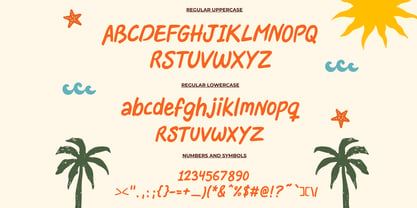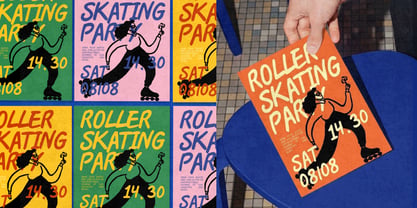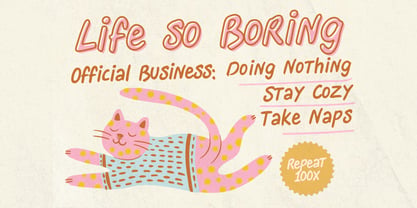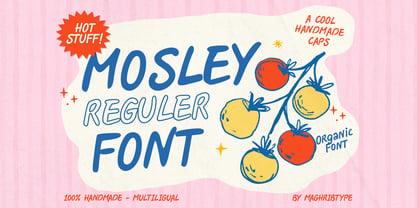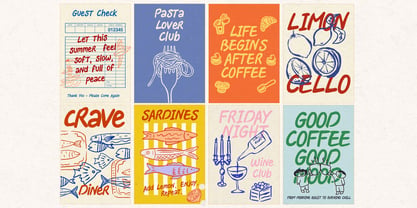
Mosley
by Maghrib Type
The Mosley Font Family was designed by Rizky Setyaludin and published by Maghrib Type. Mosley contains 1 styles. More about this family
Mosley is a bold handdrawn display font created with an organic and expressive lettering style. Its chunky strokes, playful curves, and naturally imperfect shapes create the feeling of authentic handmade typography.
With its casual yet impactful personality, Mosley is perfect for eye-catching headlines, logos, posters, packaging, apparel, labels, signage, café and bakery branding, social media graphics, and other creative display applications.
The font combines a playful retro aesthetic with modern handlettered energy, making it versatile for both lifestyle and commercial design projects.
Mosley includes uppercase, lowercase, numbers, punctuation, symbols, and multilingual characters, giving you the flexibility to create expressive typography across a wide range of projects.
Whether you're designing a bold poster, a fun food brand, a coffee shop identity, a streetwear graphic, or a playful packaging concept, Mosley adds an unmistakably handmade touch.